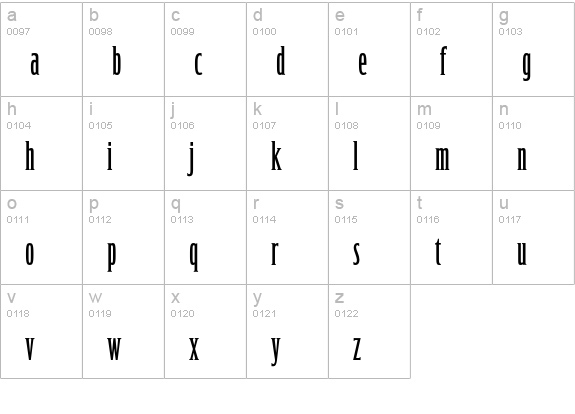
Introducing Lafayette-ExtraCondensed, a remarkable font that effortlessly combines elegance and modernity. With its sleek and slender appearance, this font is perfect for conveying a sophisticated and refined aesthetic in any design project. Lafayette-ExtraCondensed stands out among the crowd with its condensed letterforms, allowing for a compact yet legible composition. Each character is carefully crafted with precision and attention to detail, resulting in a typeface that exudes professionalism and style. The versatility of Lafayette-ExtraCondensed is truly remarkable, making it suitable for a wide range of applications. Whether you're designing a logo, creating eye-catching headlines, or crafting a visually stunning poster, this font will elevate your work to new heights. What makes Lafayette-ExtraCondensed even more exceptional is that it is available for free download at FontsMarket.com. Yes, you read that right - this high-quality font can be yours without spending a single penny. FontsMarket.com is a trusted source for premium fonts, and Lafayette-ExtraCondensed showcases their commitment to providing designers with top-notch resources. Don't miss out on the opportunity to enhance your design projects with Lafayette-ExtraCondensed. Download this remarkable font today and experience the elegance and sophistication it brings to your work.